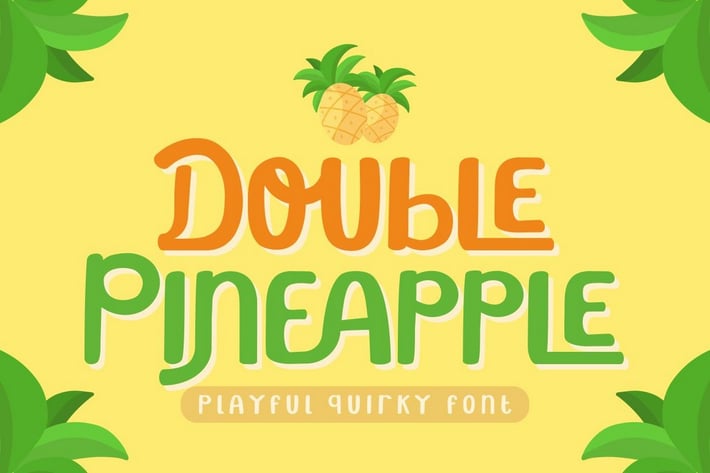
Double Pineapple - Playful Quirky Font
Double Pineapple - Playful Quirky Font. This font is a playful quirky font with a lot of character ligatures, as many as 85 ligatures. With a soft and warm appearance, it is suitable for all ages from children, teenagers and the elderly. This font is perfect for logos, greeting cards, quotes, svg, posters, logos and more.
Come with lot of ligatures character, its help you to make great lettering, quote, logos and. This font is also support multi language.